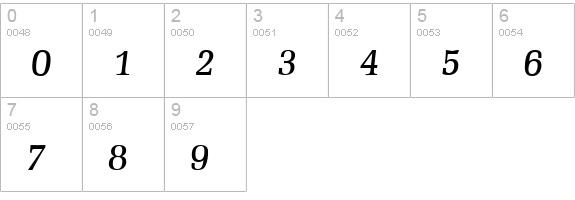
Melmac-Italic is a distinctive, italic variant in the Melmac typeface family \xE2\x80\x94 well suited to design and typography projects.
Melmac-Italic is a stunning and elegant font that exudes sophistication and style. With its sleek and modern design, Melmac-Italic is perfect for adding a touch of class to any project. The italicized style of this font adds a sense of flair and uniqueness, making it stand out from the crowd. What's even better is that Melmac-Italic is completely free to download at FontsMarket.com, allowing you to easily access this beautiful font for all your design needs. Whether you're working on a branding project, creating invitations, or designing a website, Melmac-Italic is sure to elevate your work to the next level. Don't miss out on this amazing opportunity to enhance your designs with the exquisite Melmac-Italic font.